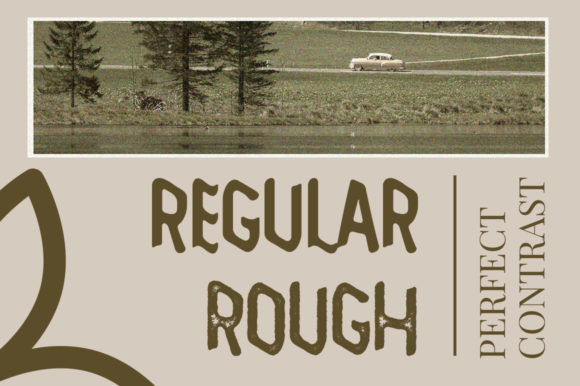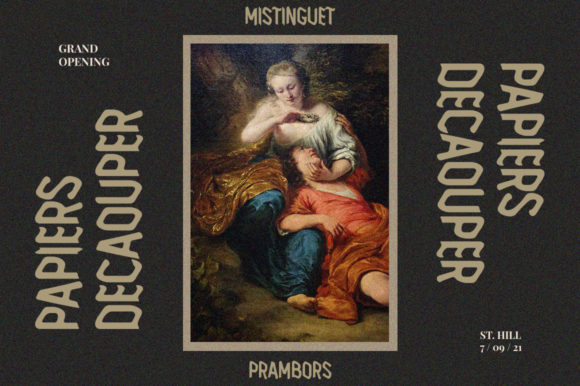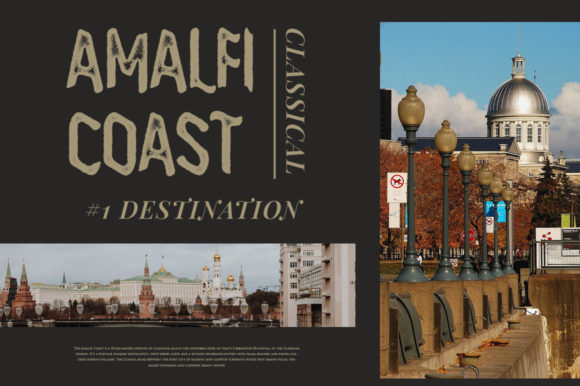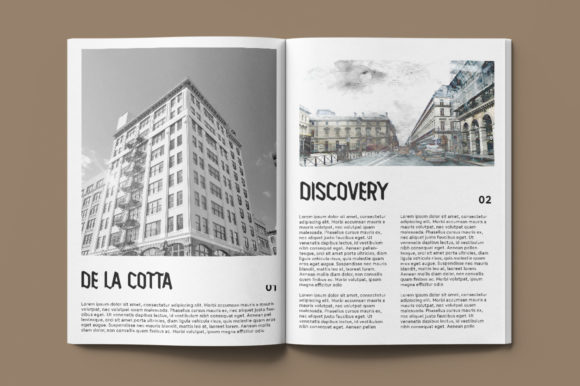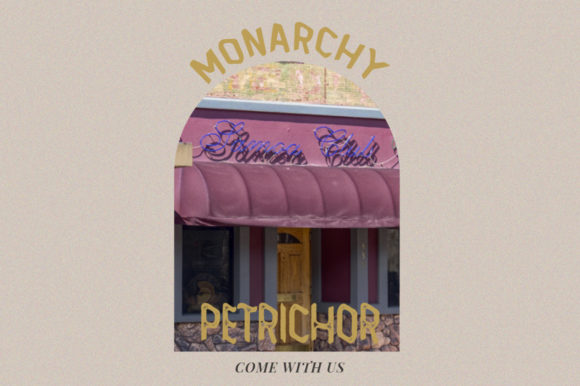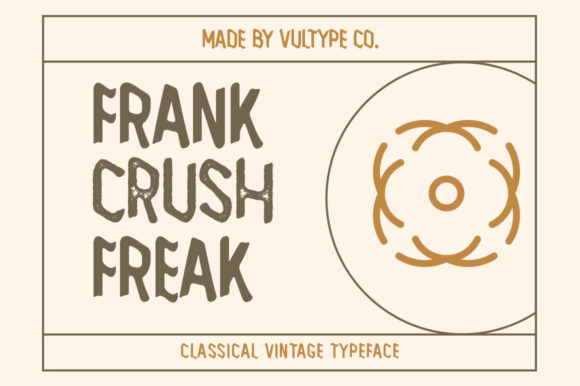
Introduction to Dalgona Rolgado Font
Dalgona Rolgado is a quirky and uniquely designed display font.
This font is ideal for writing web designs, business cards, or pretty much anything else that requires a distinct touch .
Key Features of Dalgona Rolgado Font
Why Choose Dalgona Rolgado Font?